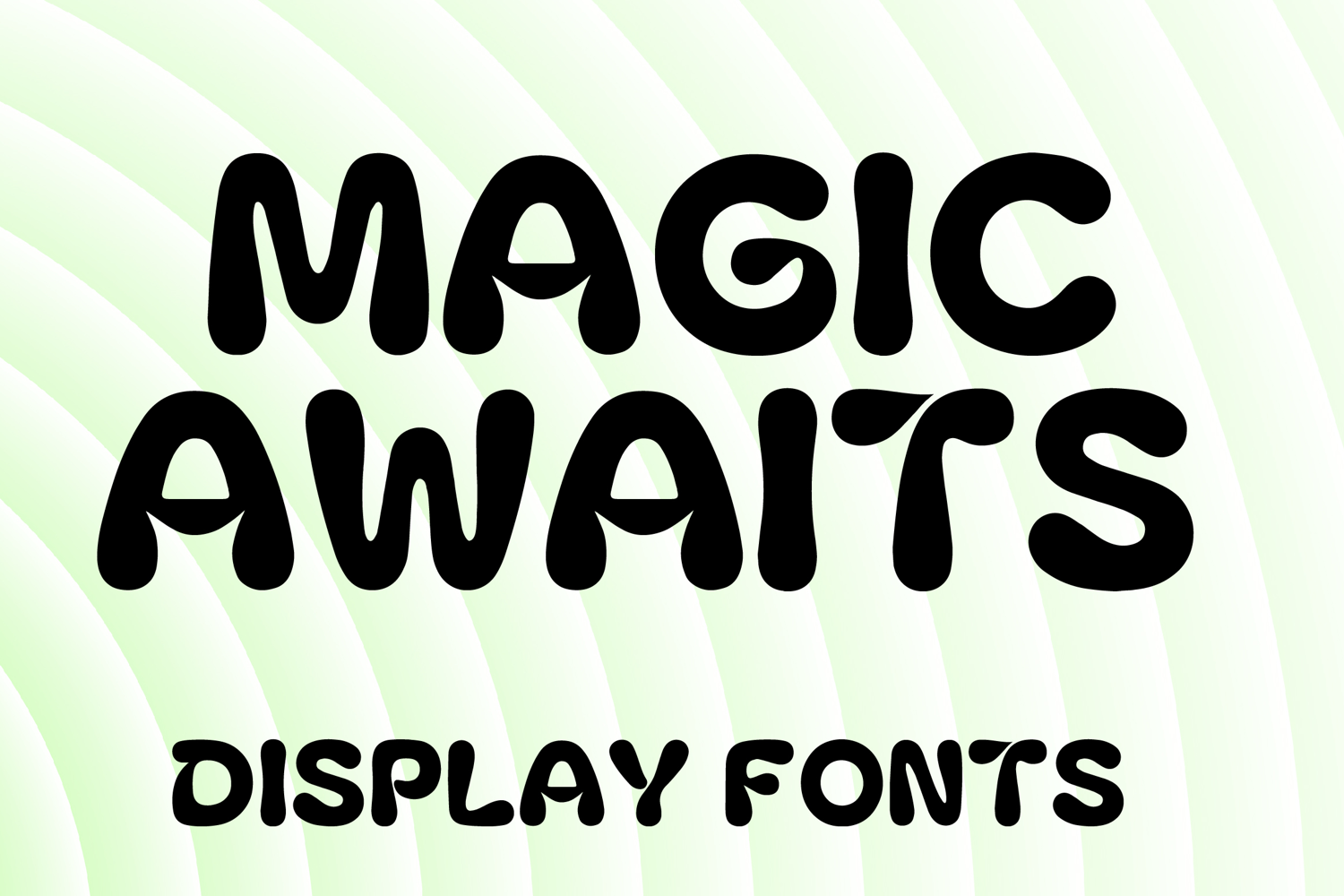
MAGIC AWAITS
MAGIC AWAITS is a playful decorative display font with a bold rounded style and cheerful whimsical charm. Its uppercase letterforms feature thick smooth strokes, soft bubbly curves, and quirky handcrafted details that create a fun, friendly, and eye-catching look. Designed with uppercase letters A–Z and numbers 0–9, MAGIC AWAITS is perfect for branding, posters, packaging, invitations, logos, social media graphics, and creative projects that need a joyful and memorable statement.